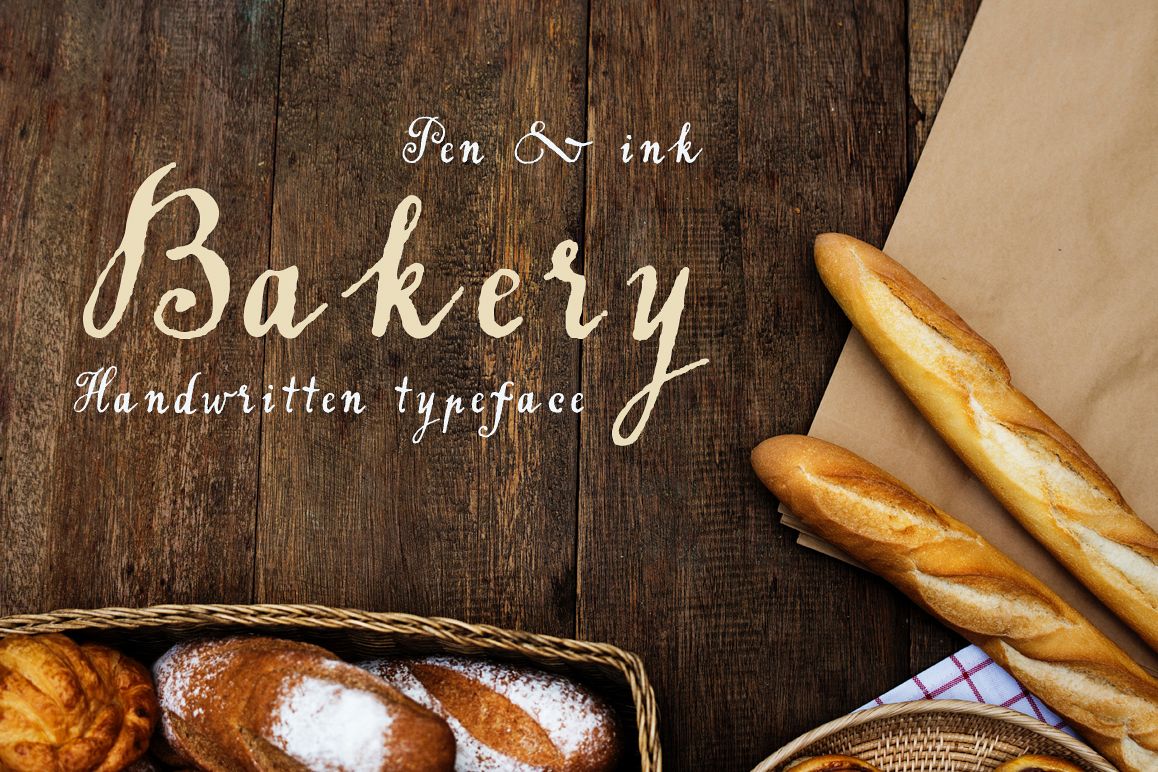
Handwritten tapeface Bakery
Introduce my font Bakery is a unique blend of classic and modern handwritten font. I used pen for calligraphy and black ink. Bakeryperfect for wedding, event, invitation, escort card, table number, header menus, display, logos, slider blog, custom address, stamps, packaging, greeting card, etc.This font includes Latin, Russian and Ukrainian Cyrillic.WHATS INCLUDED? 7 Font Files. Bakery (ttf, afm, pfm, ~t1, eot, woff, woff2).Features: Basic Latin A-Z and a-z Basic Russian А-Я and а-я Basic Ukrainian А-Я and а-я Numeral & Punctuation Script 248 GlyphsHave fun and Enjoy! Thank you for following :)